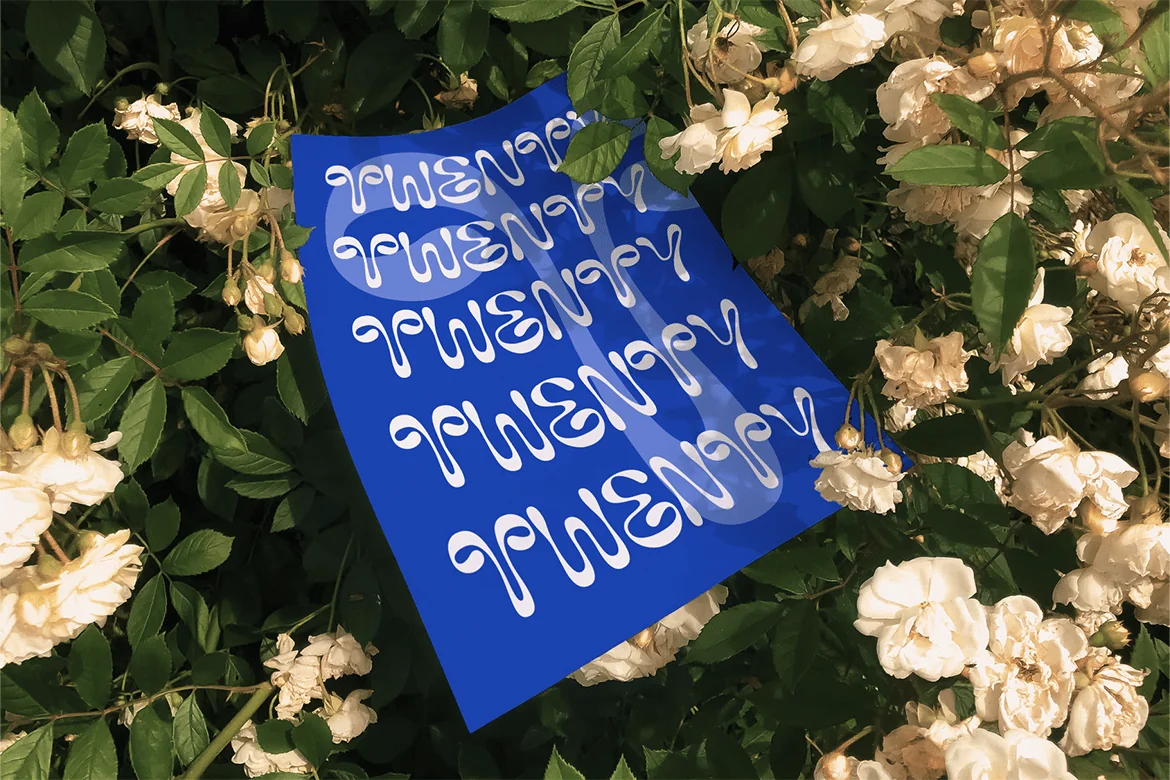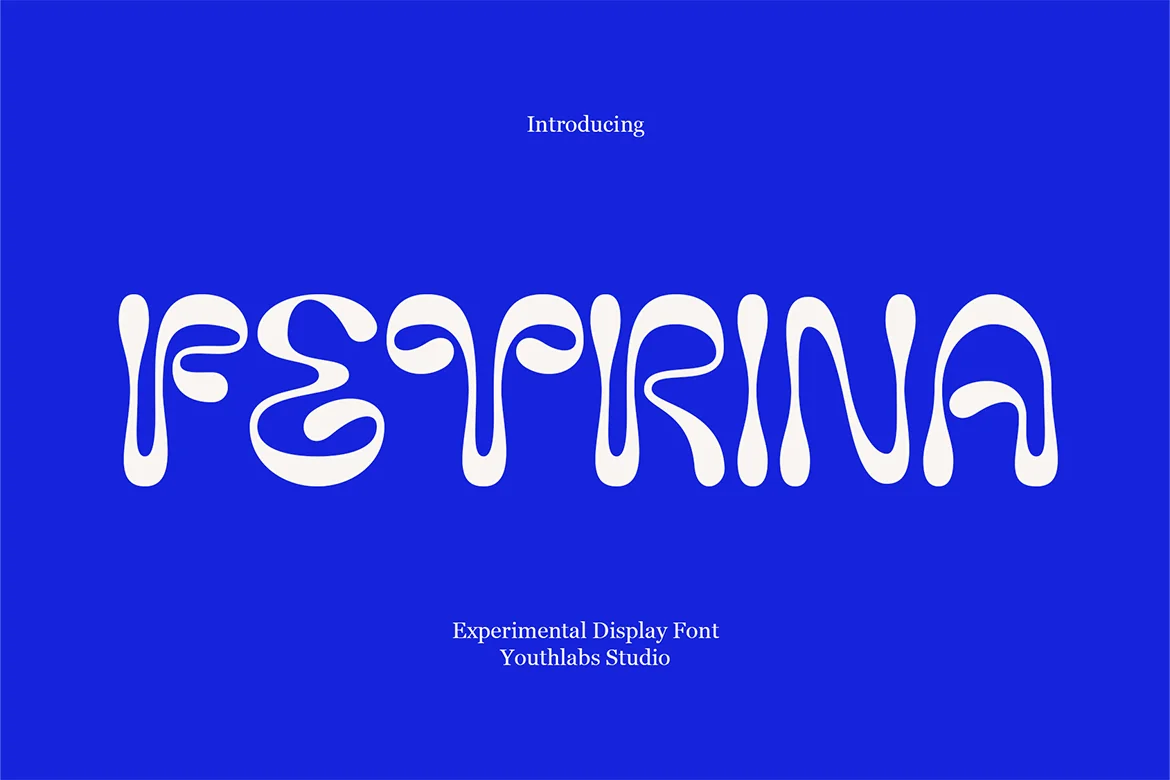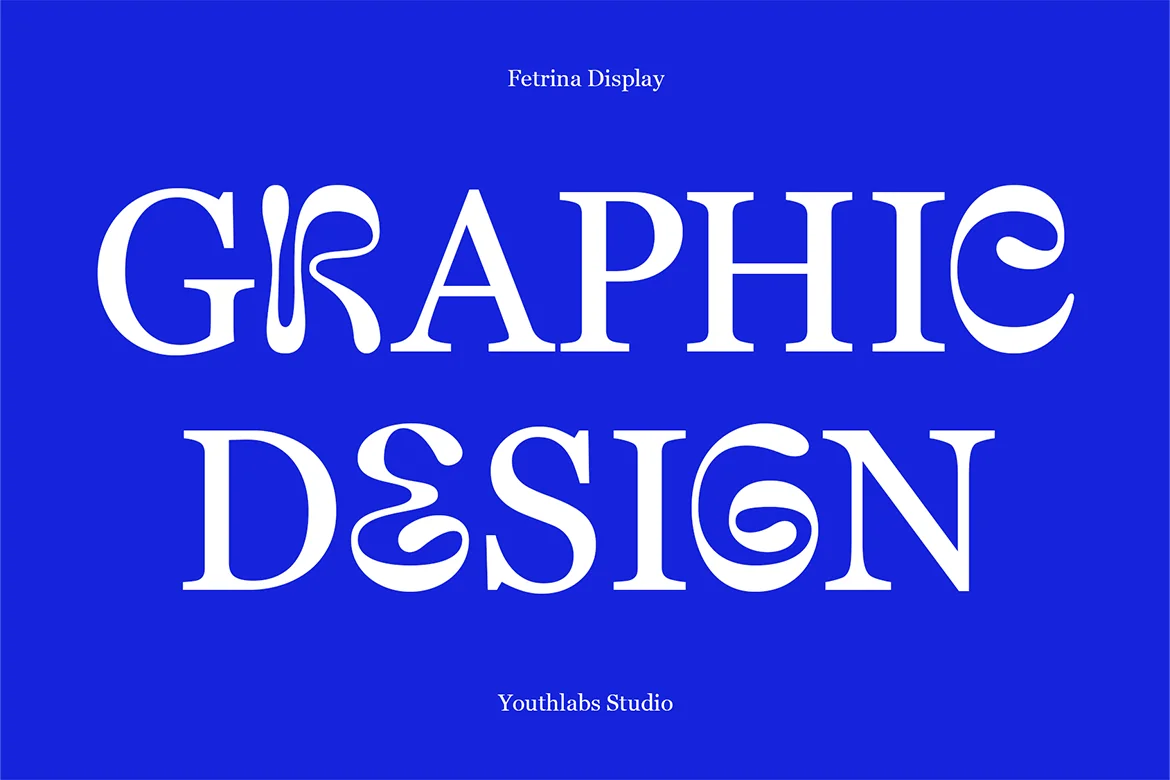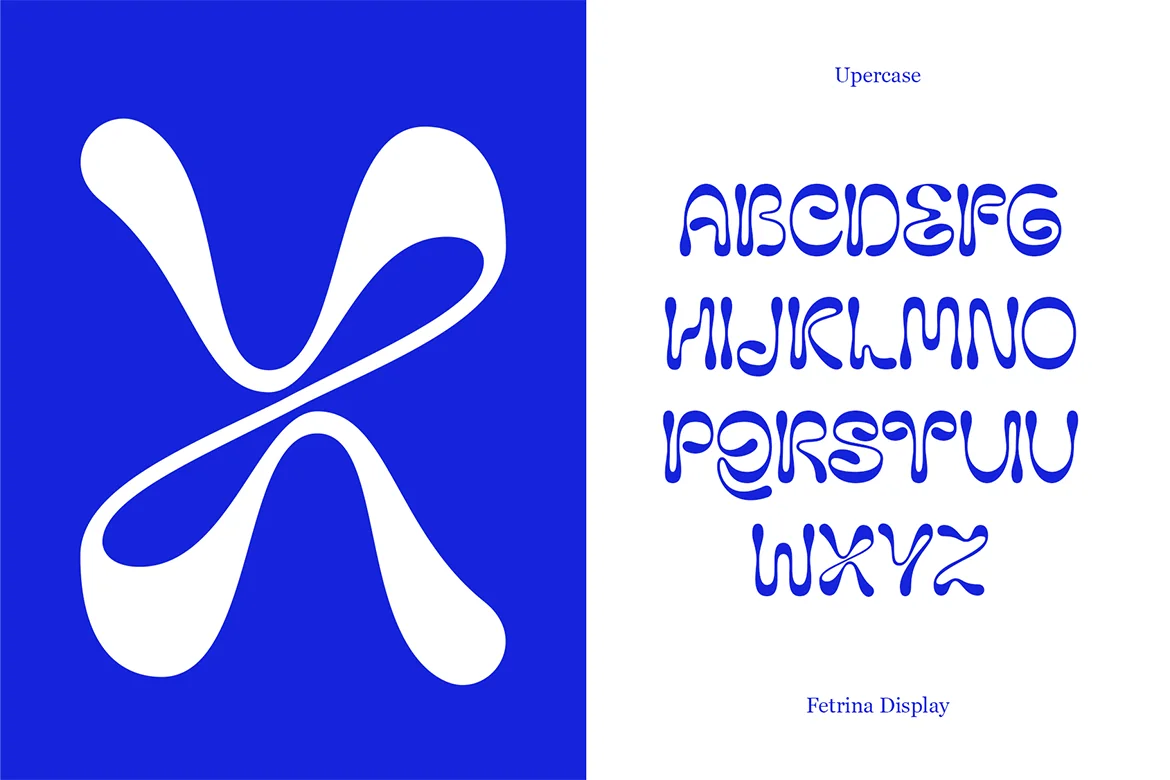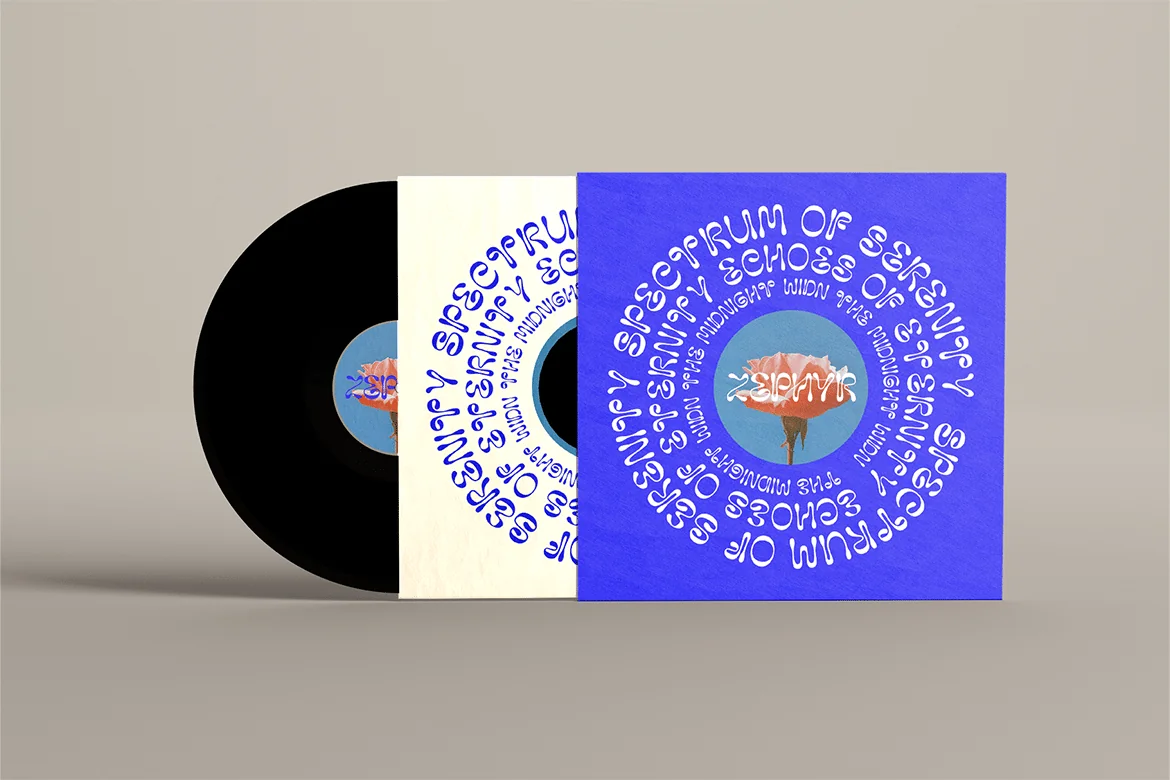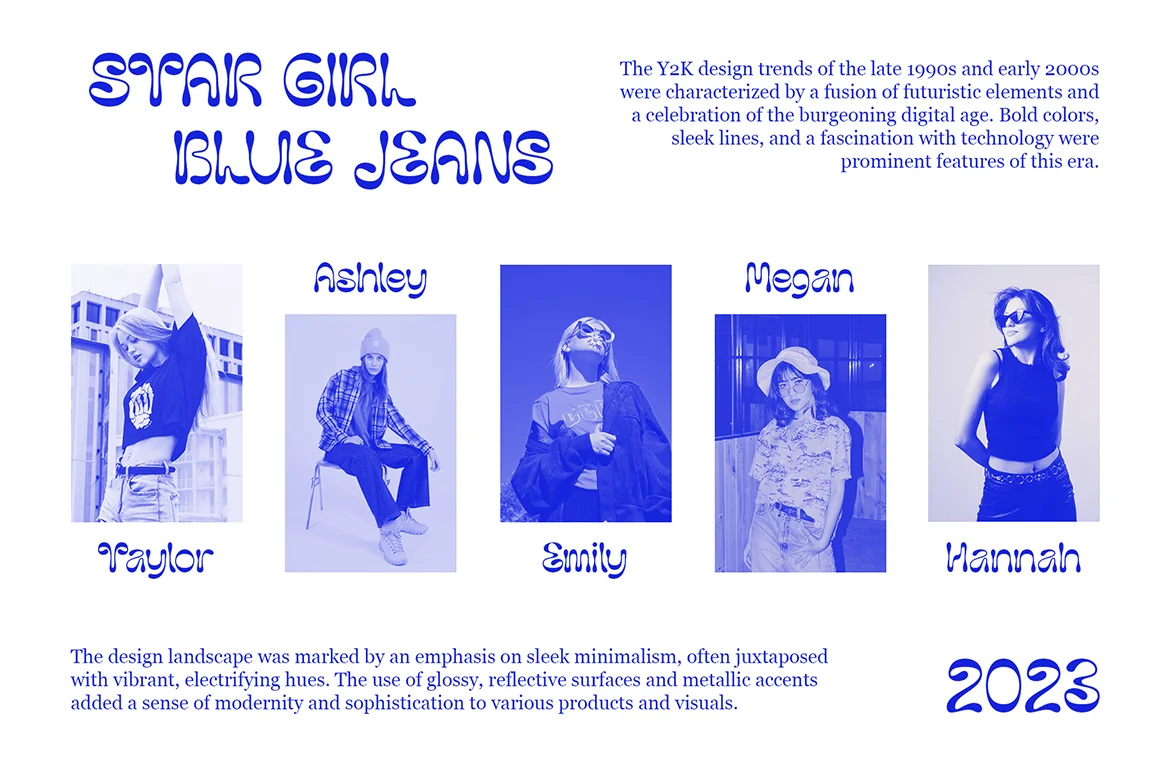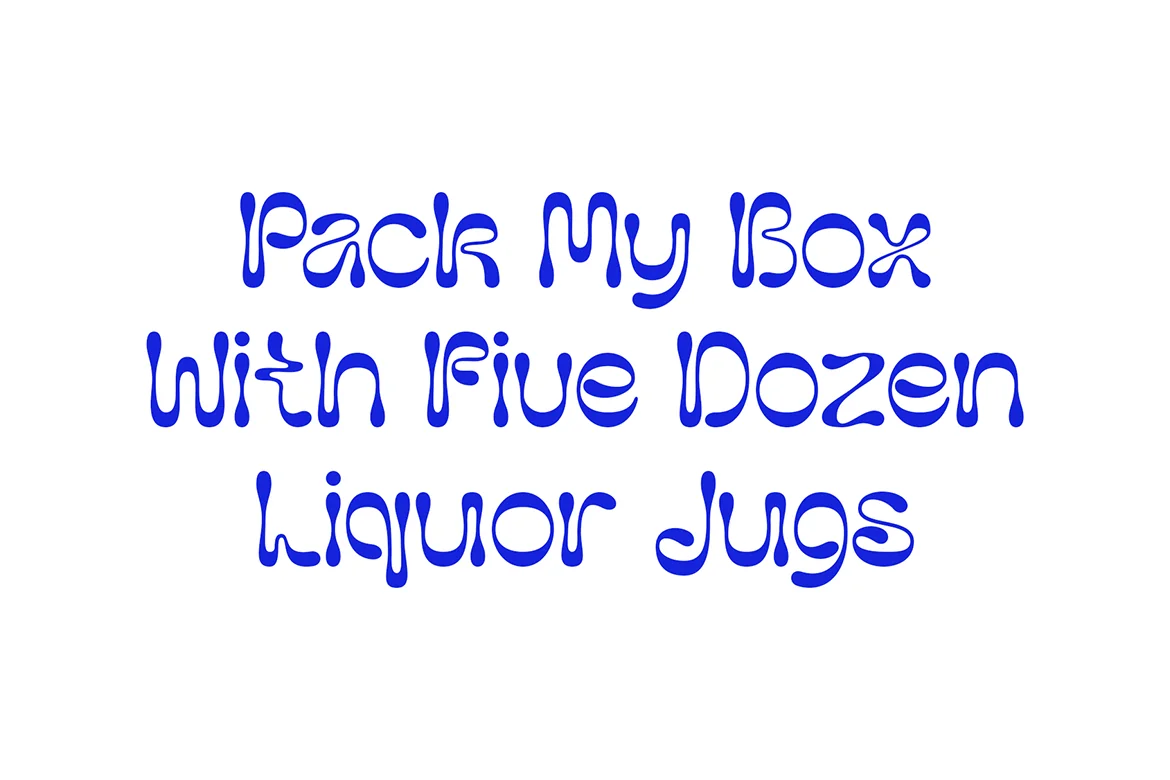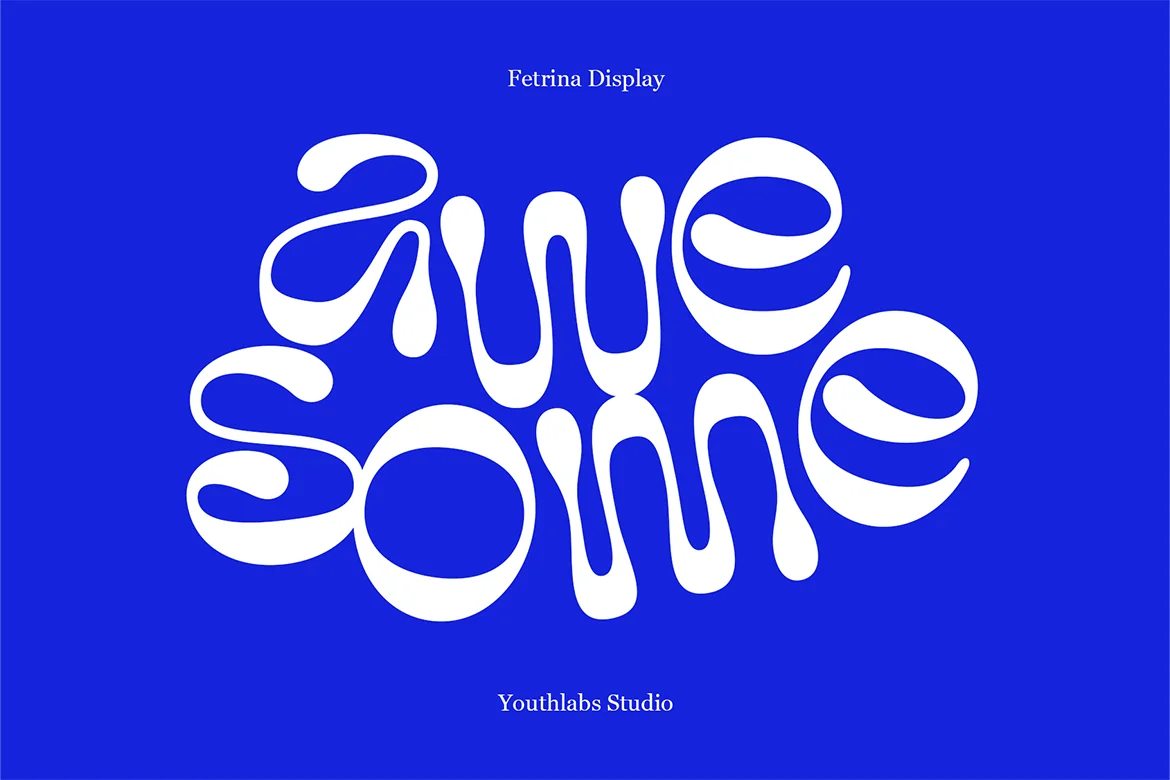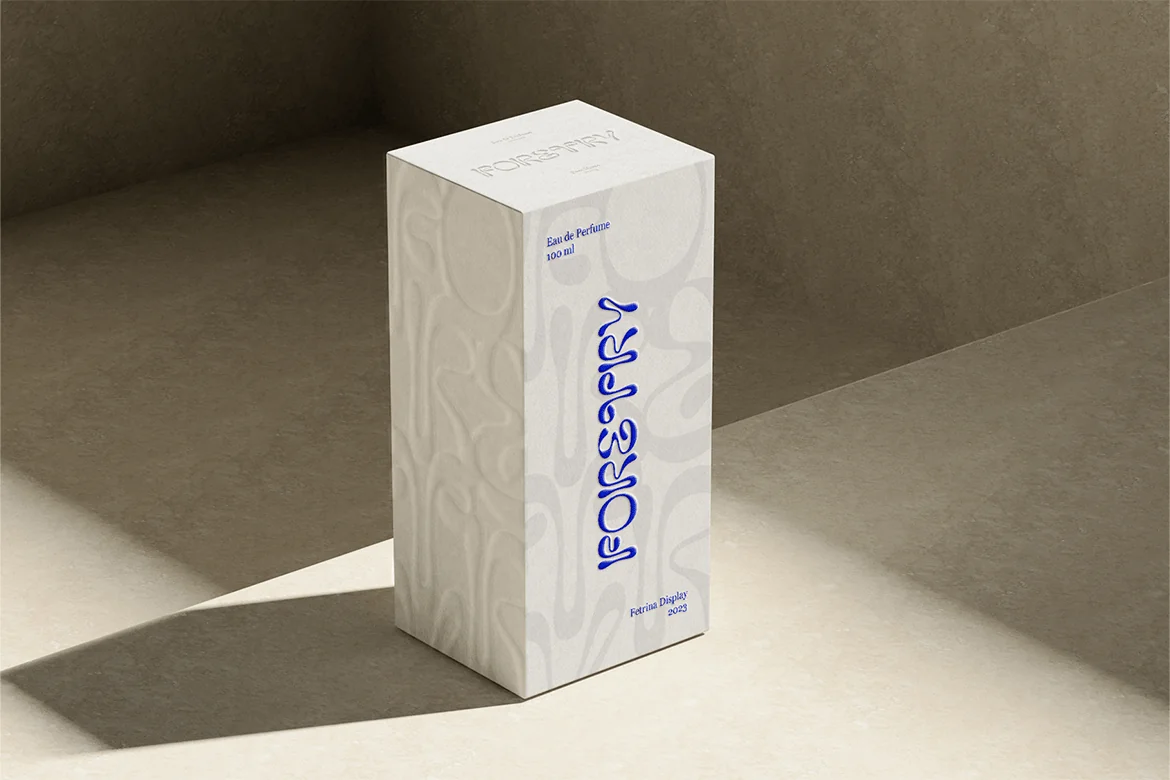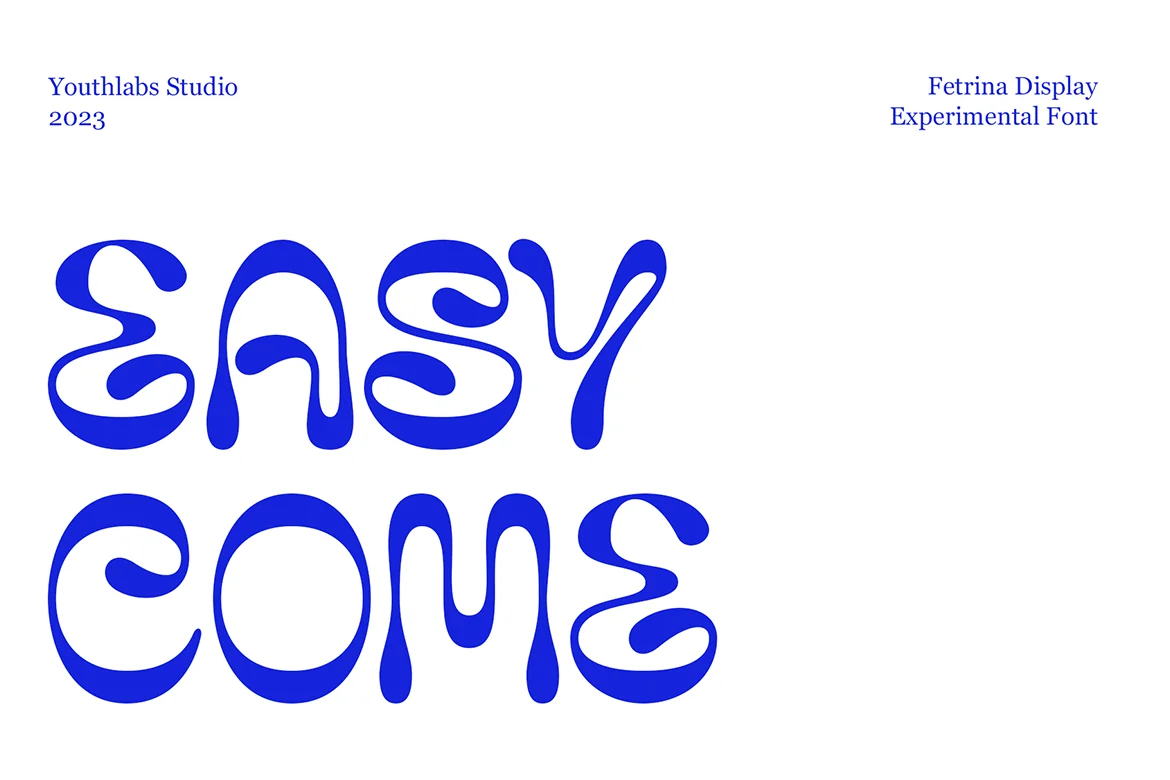
FETRINA – Experimental Display Font
Fetrina is inspired by 90s trends which are made to still look modern, Fetrina uses contrasting circles to emphasize flexibility and flexibility in designing, Fetrina is suitable for brand headlines, marketing materials and other design needs.